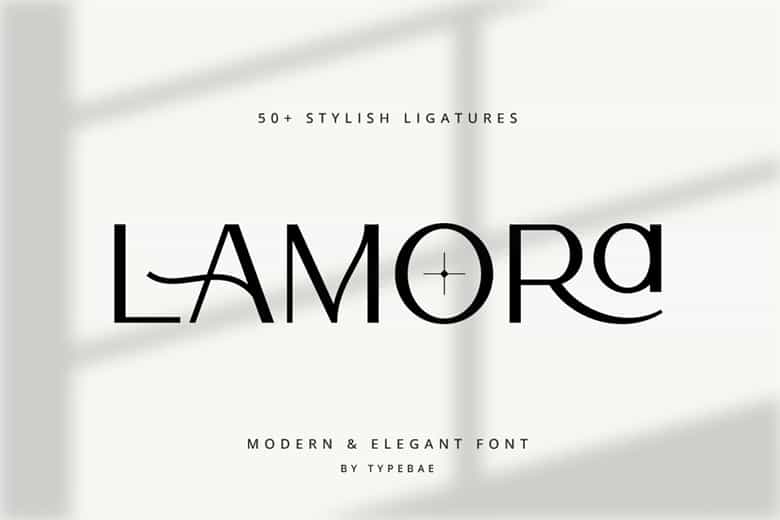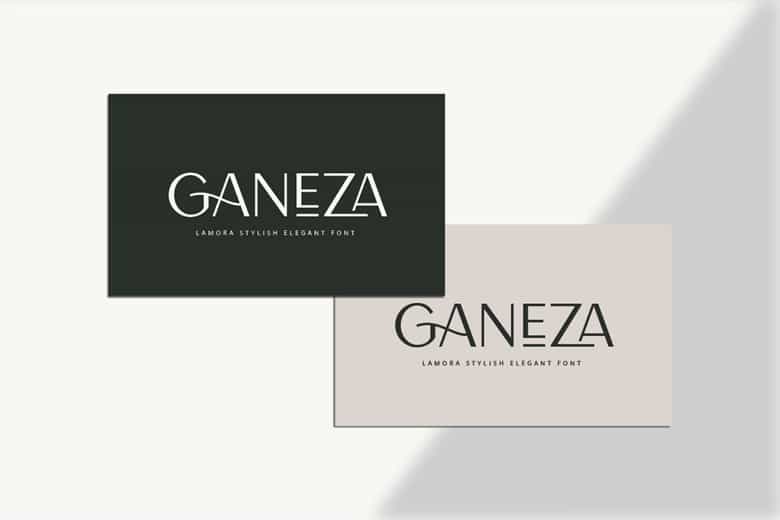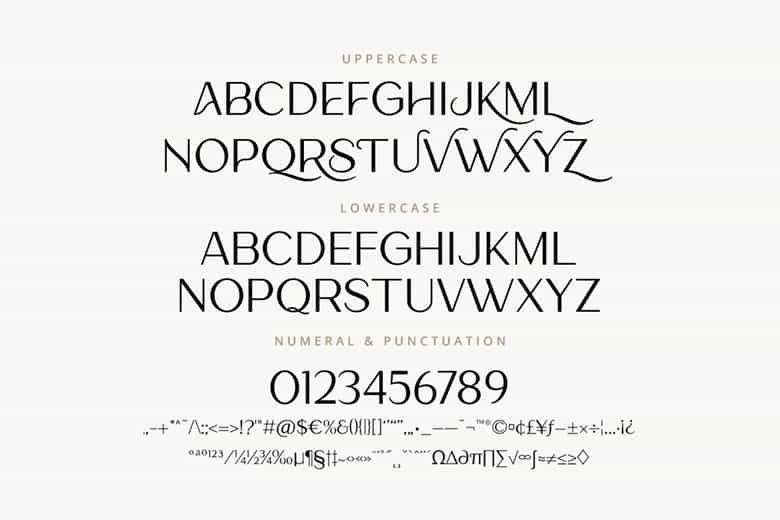
Lamora Font
Lamora is a fancy wordmark font and a stylish logo font with the touch of refinement to make the brand or logo stand above the rest. It has 59 classy ligatures and 27 stylish stylistic sets which allow you the limitlessness to make creative typography that is unique and elegant. The elegant strokes and smooth font shapes make the attractive text Mora ideal to use in high-quality branding, fashion labels, editorial design, wedding invitations and simple logos.